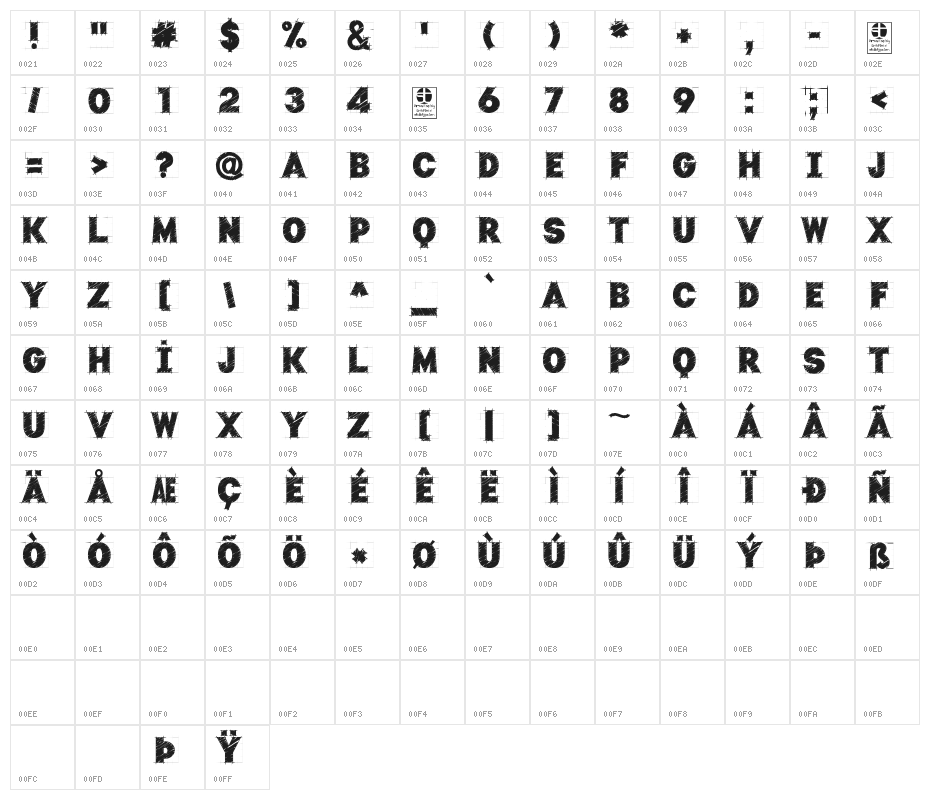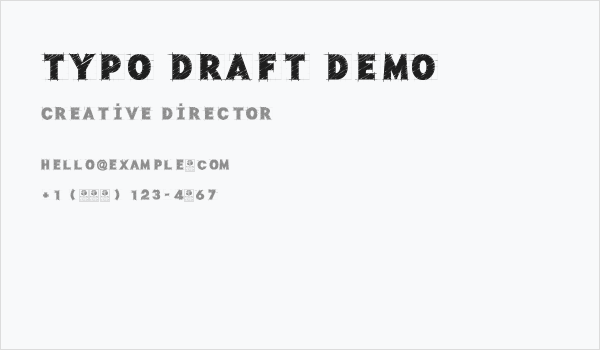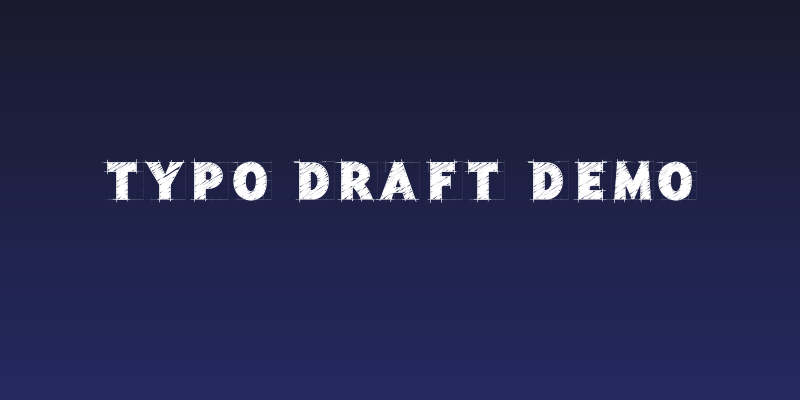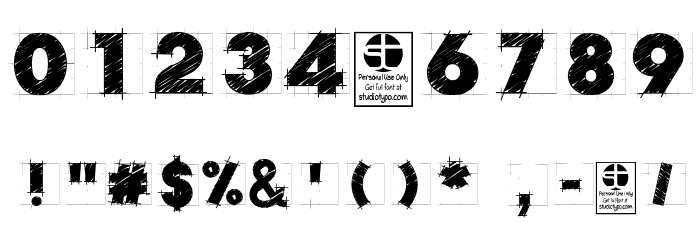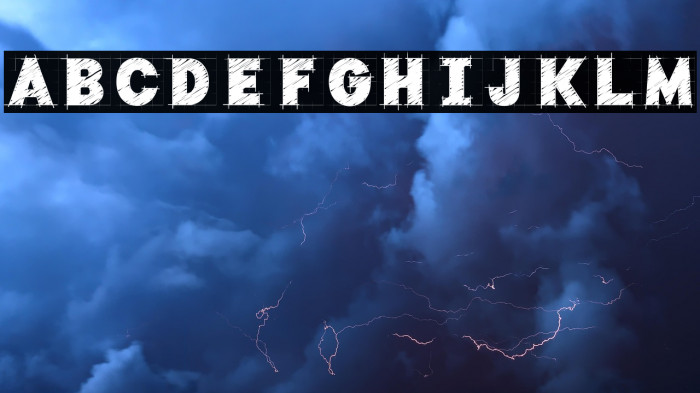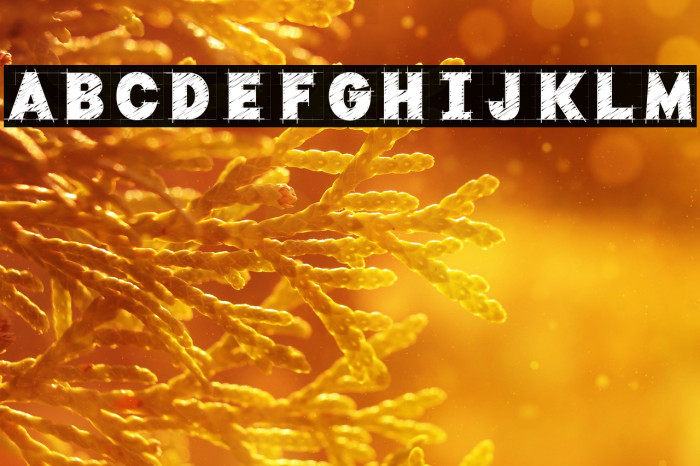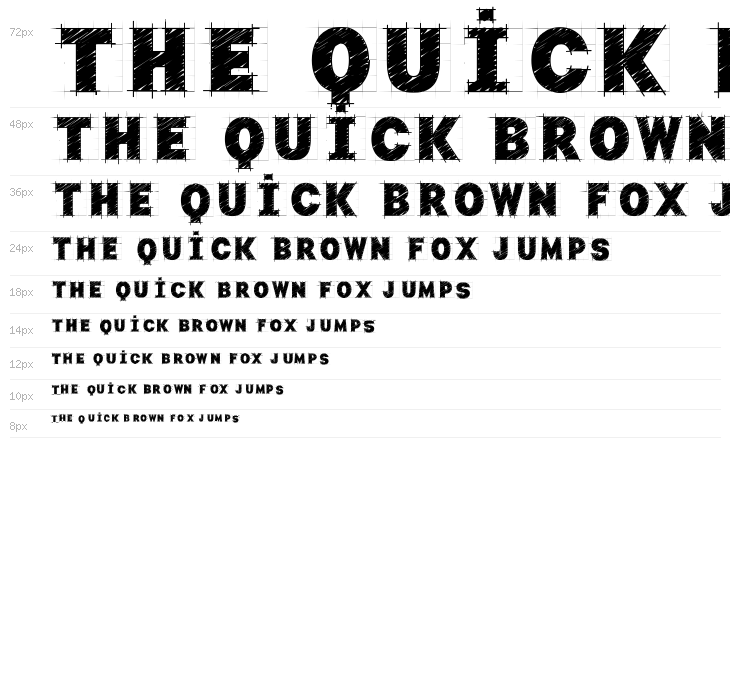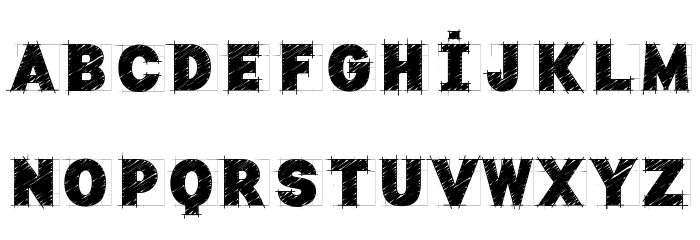
Typo Draft Demo Font
Typo Draft Demo Description
This font features a bold, sketch-like appearance with a hand-drawn aesthetic. The characters are filled with dense, crisscrossing lines that create a textured, draft-like effect. The uppercase and lowercase letters maintain a consistent style, with each character exhibiting a unique, artistic flair. The numbers and special characters follow the same design principles, ensuring a cohesive look across all glyphs. This font's distinctive style makes it stand out, offering a creative and informal vibe that is both eye-catching and memorable.
| Proposed Projects | Ideal for creative projects such as posters, album covers, artistic branding, and any design requiring a unique, hand-crafted look. |